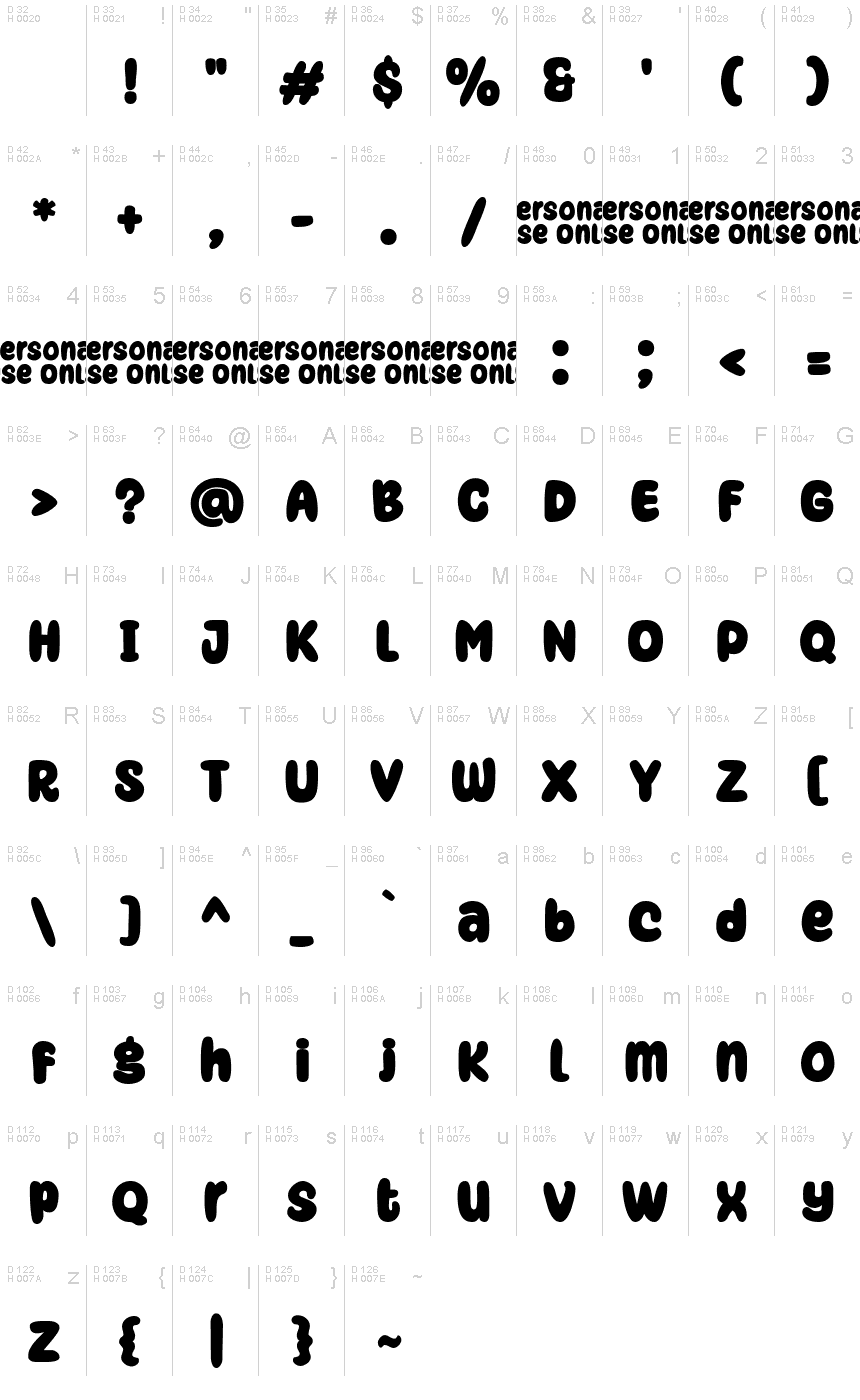
Super Snack
Super Snack, the brainchild of talented designer fsuarez913, is a captivating display font that injects an extra-bold dose of playfulness into any project.
With its cartoon-inspired style, Super Snack brings a delightful and whimsical touch to children's books, party invitations, and art-related websites. Its chunky letterforms are perfect for creating eye-catching headlines and attention-grabbing logos. Let Super Snack be your secret ingredient in creating delectable designs that leave a lasting impression on your audience.
Super Snack is a fun, cartoon, and simple font that is perfect for childrens books, cartoons, and other playful designs. The letters are all rounded and have a slight bounce to them, which gives them a sense of movement and energy.